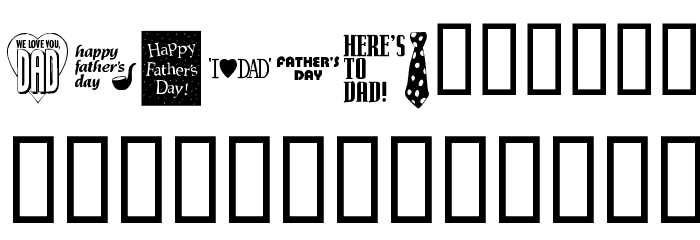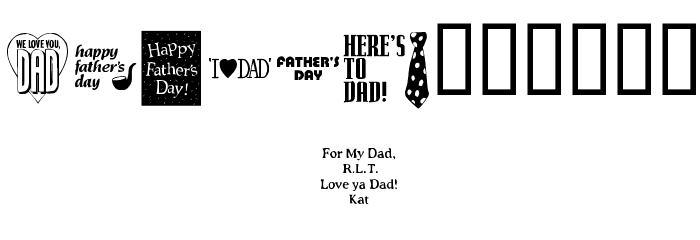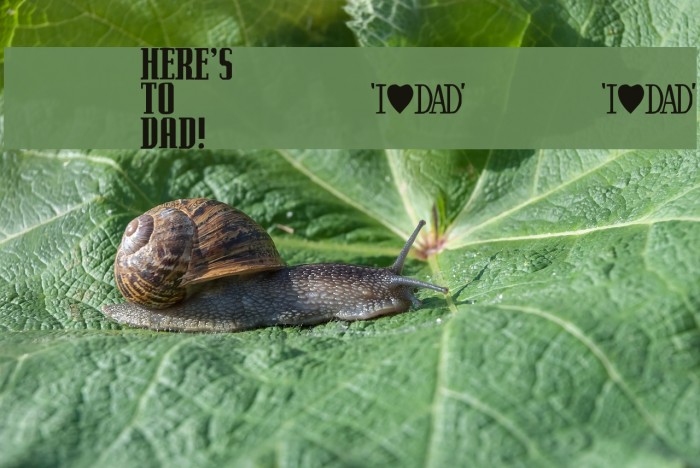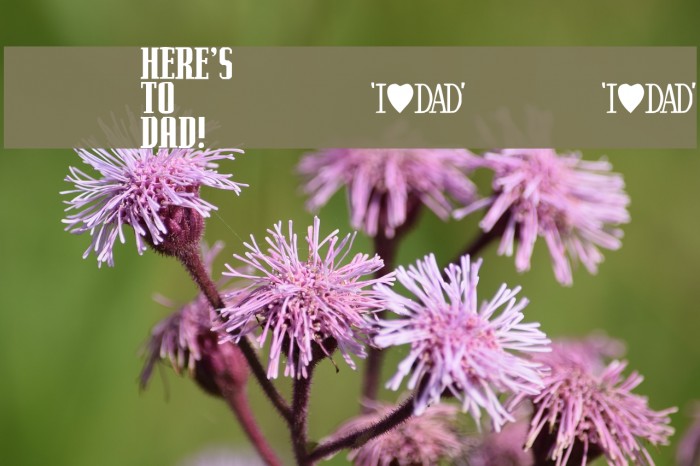
KR Father's Day Dings Font
This font is a playful and thematic collection of dingbats and decorative elements centered around Father's Day. It includes a variety of celebratory phrases and symbols such as ties, hearts, and pipes, all designed to convey appreciation and love for fathers. The style is bold and graphic, with a mix of serif and sans-serif elements, creating a dynamic and festive appearance. The font is perfect for crafting personalized cards, decorations, and gifts for Father's Day, offering a unique way to express gratitude and affection.
A playful, thematic font featuring Father's Day phrases and symbols.
- Proposed Projects: Ideal for creating Father's Day cards, gift tags, party decorations, and personalized gifts.
- Use Case: Logos, Headlines